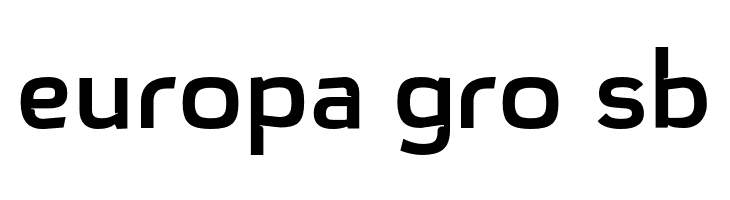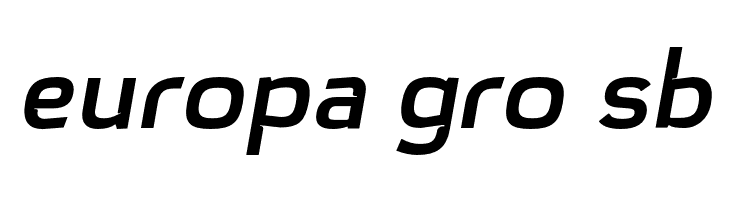
A bold, hand-drawn font with a playful and energetic style.
A dynamic script font with elegant, flowing curves and connected letterforms.
An elegant script font with flowing, cursive lines and a classic aesthetic.
An elegant, high-contrast script font with a classic style.
A playful, handwritten-style font with bold, slanted uppercase letters and rounded lowercase characters.
A bold, geometric font with Art Deco influences and angular designs.
A modern, geometric sans-serif font with uniform stroke widths and clear characters.
A modern, italic font with a sleek and dynamic style.
An elegant script font with graceful curves and refined details.
Elegant script font with flowing curves and high contrast.
A playful, hand-drawn style font with bold, irregular strokes.
A bold, geometric font with rounded shapes and cut-out elements, offering a futuristic look.
A playful and whimsical script font with fluid, interconnected letterforms.
An elegant script font with flowing, interconnected letters and classic calligraphic style.
An elegant, high-contrast script font with flowing, cursive letterforms.
An elegant script font with intricate loops and flourishes.
A bold, flowing script font with elegant curves and decorative flourishes.
A collection of artistic illustrations with bold, graphic style and high contrast.
A bold, hand-drawn font with a playful and energetic style.
An elegant, flowing script font with a natural handwritten style.
A fluid and elegant script font with smooth, flowing lines.
A dynamic, cursive script font with fluid, interconnected letters.
A bold, extra-condensed font with a modern and assertive style.
A flowing cursive font with elegant, connected letters and a calligraphic style.
A flowing, cursive font with elegant, connected letters and moderate stroke contrast.
A bold, expressive script font with a dynamic, handwritten style.
A bold, condensed font with strong verticality and uniform weight.
A bold, angular font with a modern, geometric style.
A bold, angular font with a modern and assertive style.
A bold, italicized font with sharp angles and high contrast, perfect for dynamic headlines.
A dynamic, italicized font with sharp, elongated characters.
An elegant, flowing script font with bold, cursive strokes.
A sophisticated script font with elegant loops and swashes.